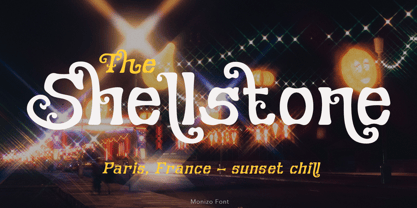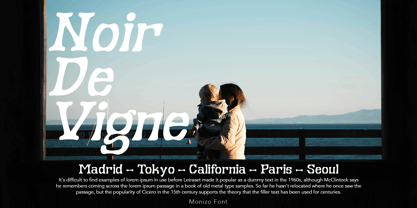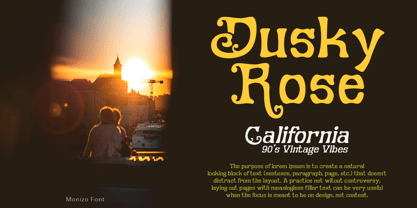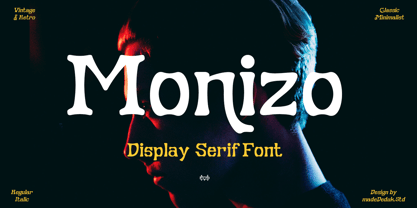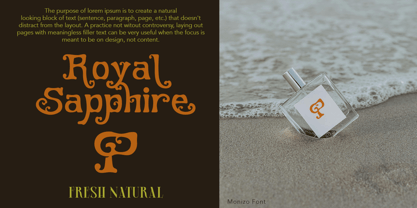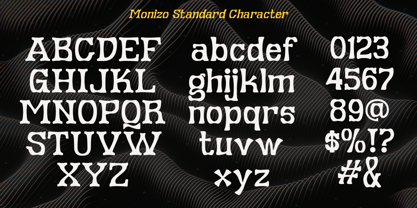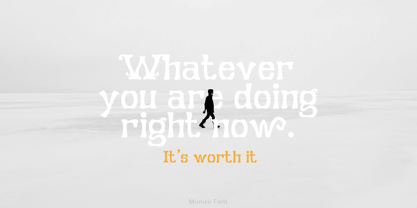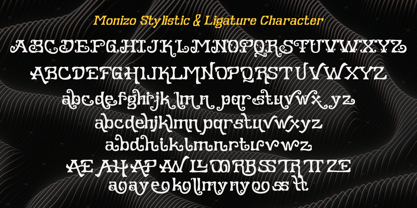
Monizo
by madeDeduk
The Monizo Font Family was designed by madededuk and published by madeDeduk. Monizo contains 2 styles and family package options. More about this family
Monizo is a display serif with 80's retro style serif and refined you can explore and combine creating rhythm for comfortable reading. Come with single weight, legible and expressive shapes. A lot of stylish alternates characters and ligature will makes this font suitable for your any project design whether you’re creating digital content or printed materials.